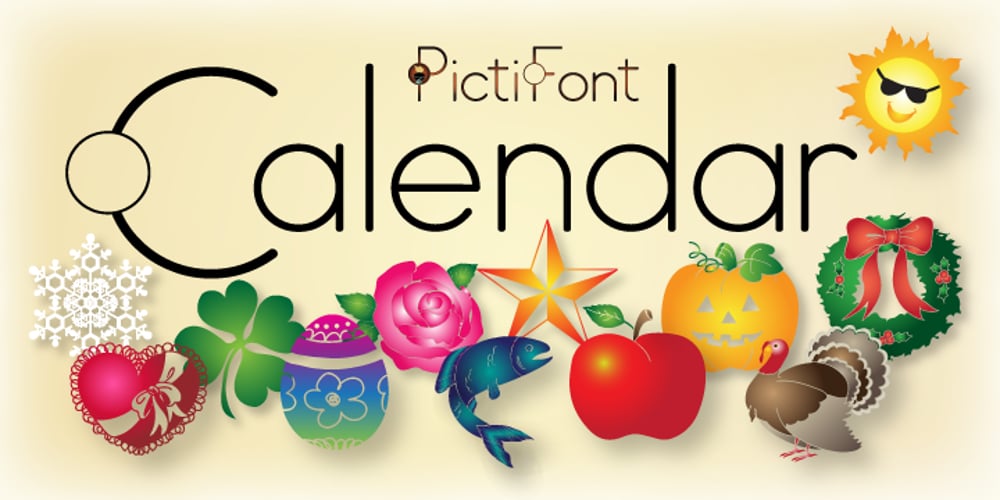
PictiFont Symbols – Calendar Font Family was designed by Melinda Boyle and published by PictiFont. PictiFont Symbols – Calendar contains 1 styles and family package options. Our very first symbol set, intended to be used within any of the PictiFont™ typefaces, features a complete 12-month collection of symbols to personalize your very own calendar. Mix and match to create an entire seasonal feel. Perfect for office calendars, classrooms, scrapbooking, or anything else that needs a little bit of fun!